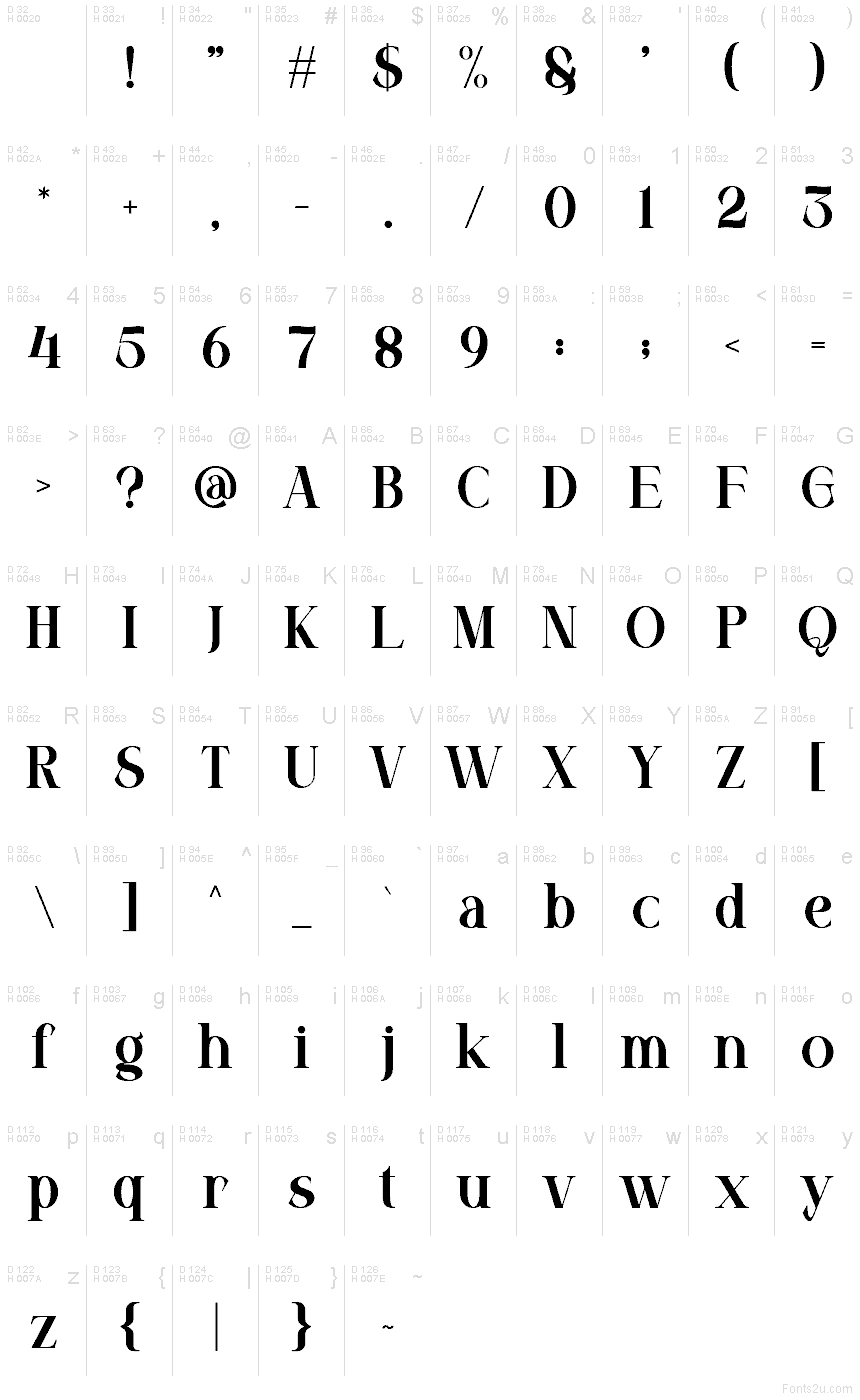
LAMCHO
Lamcho font by Gilang Ternadho is an exquisite serif font which combines classic and elegant features in its design. Traditional lettering styles give this new typeface a sophisticated and refined appearance that will add to the look of your projects all the necessary aesthetic elements for instant attraction. Use it freely in your titles, body text, labels, or other applications.
Common use cases include headlines and sub-headlines, small to medium-length paragraphs of text, digital publications such as websites and phone apps as well as printed publications like magazines and newsletters. Other uses range from label designs, advertising content typography (both outdoor signs or posters) and even visual identity elements for branding or rebranding purposes.